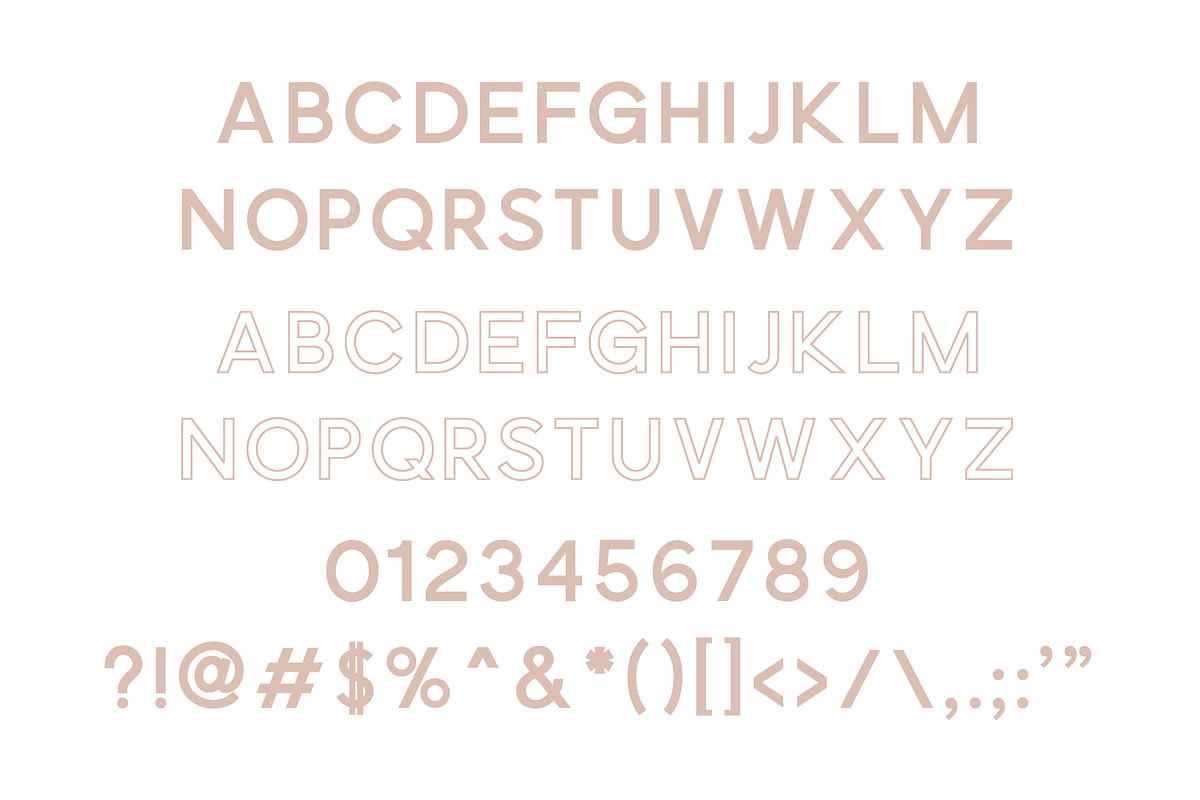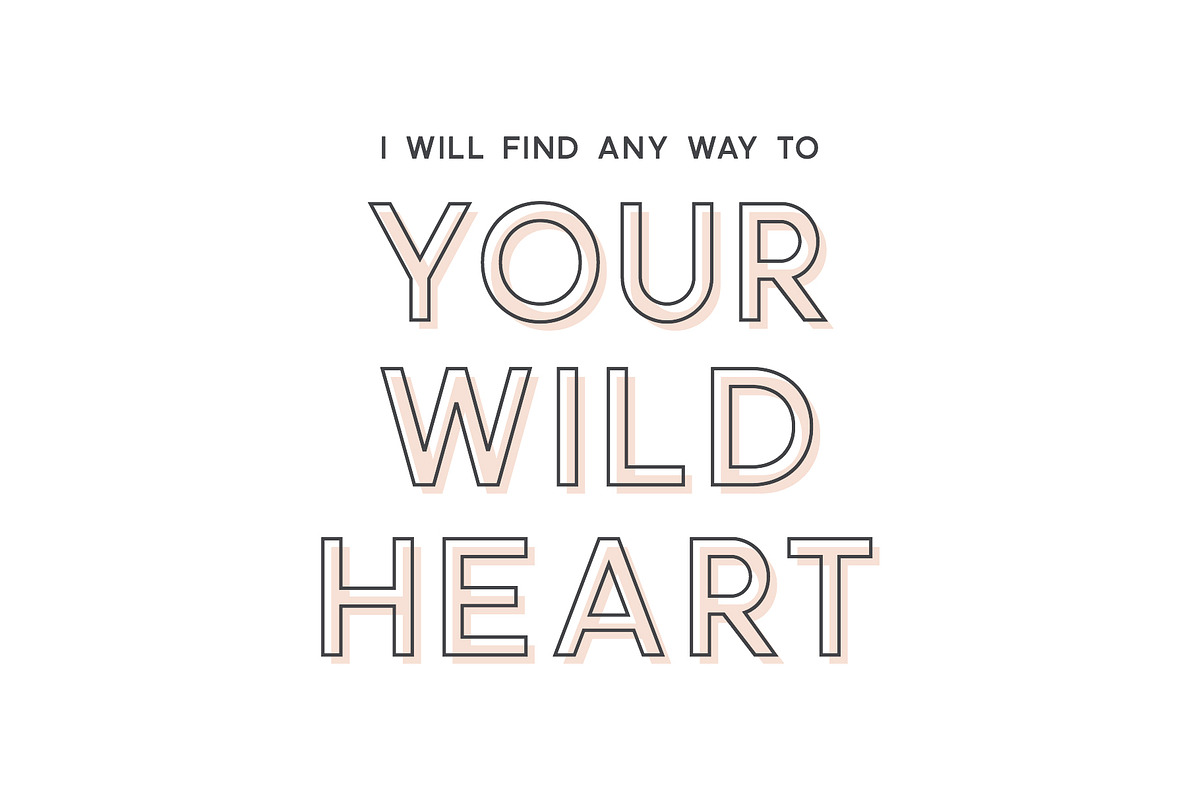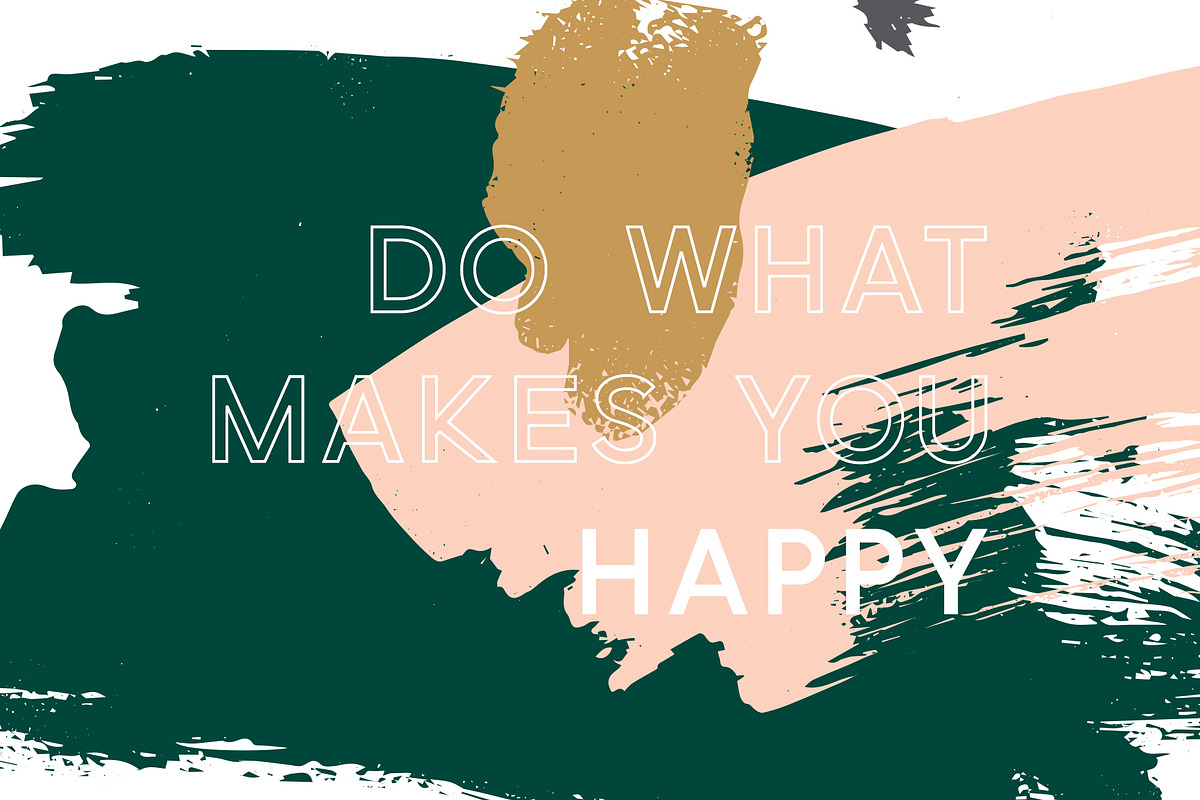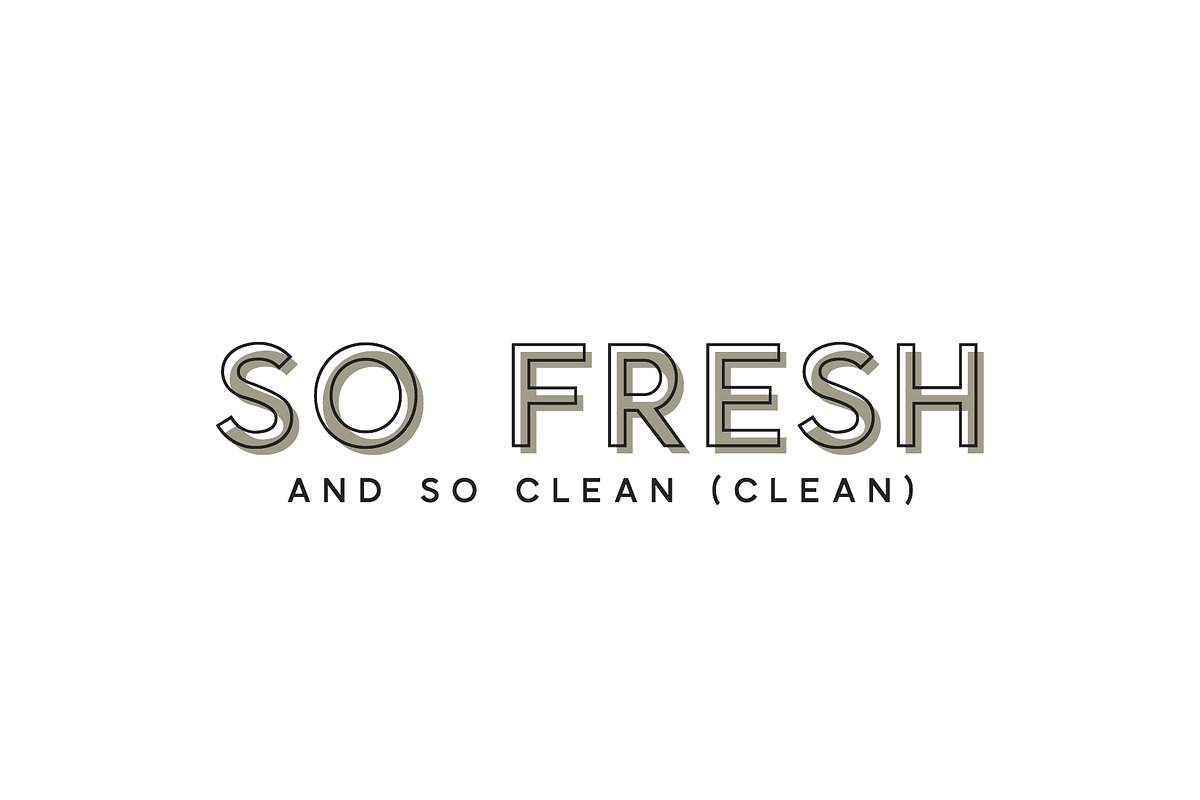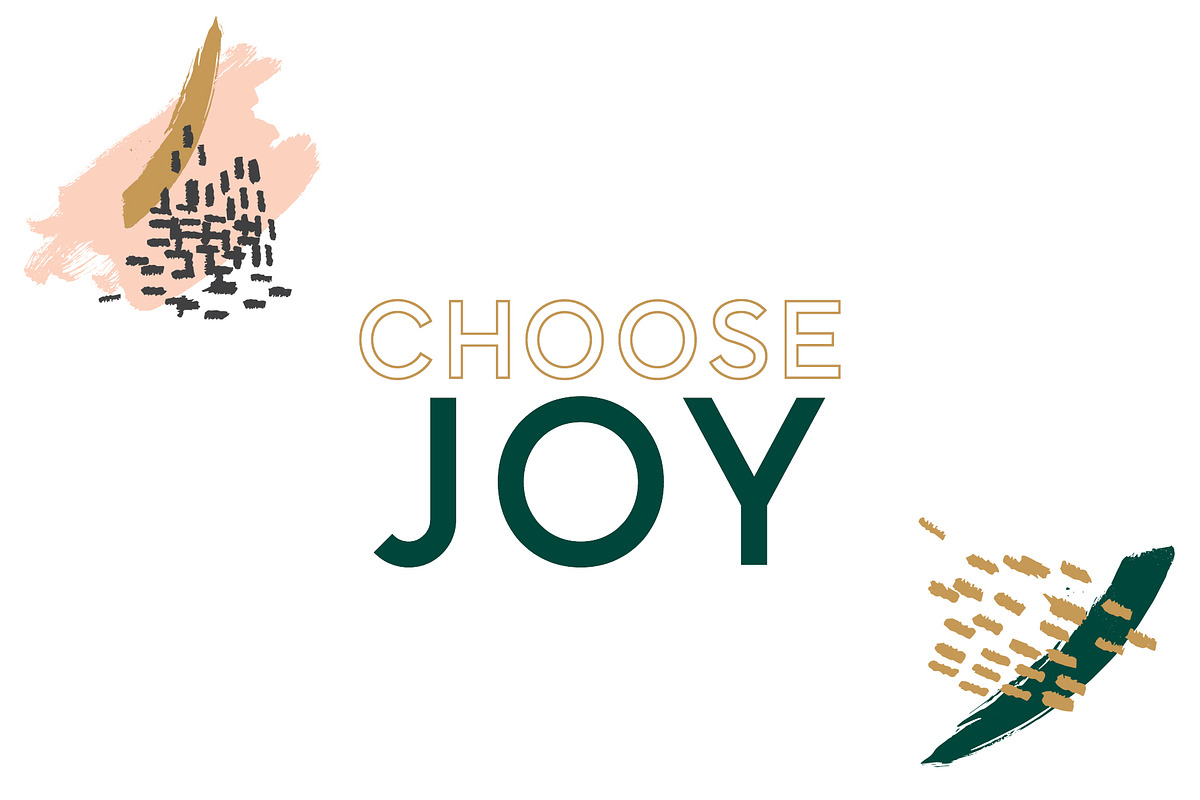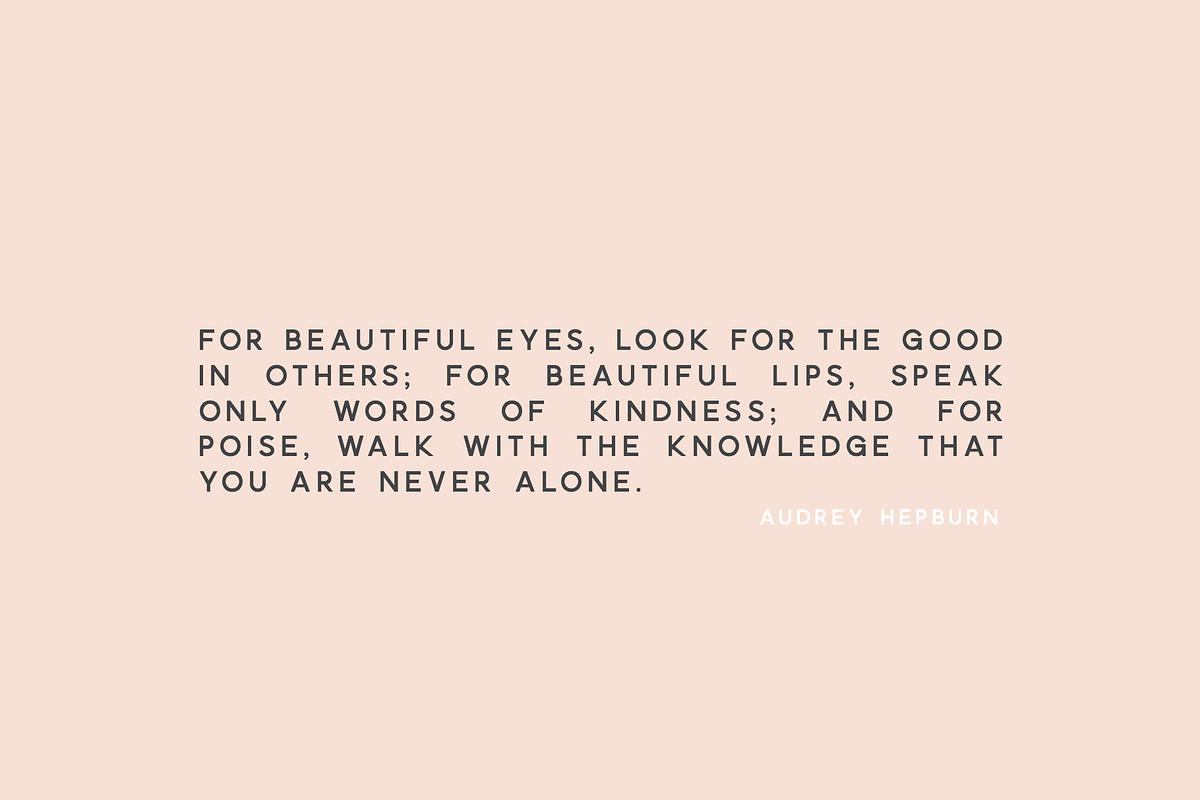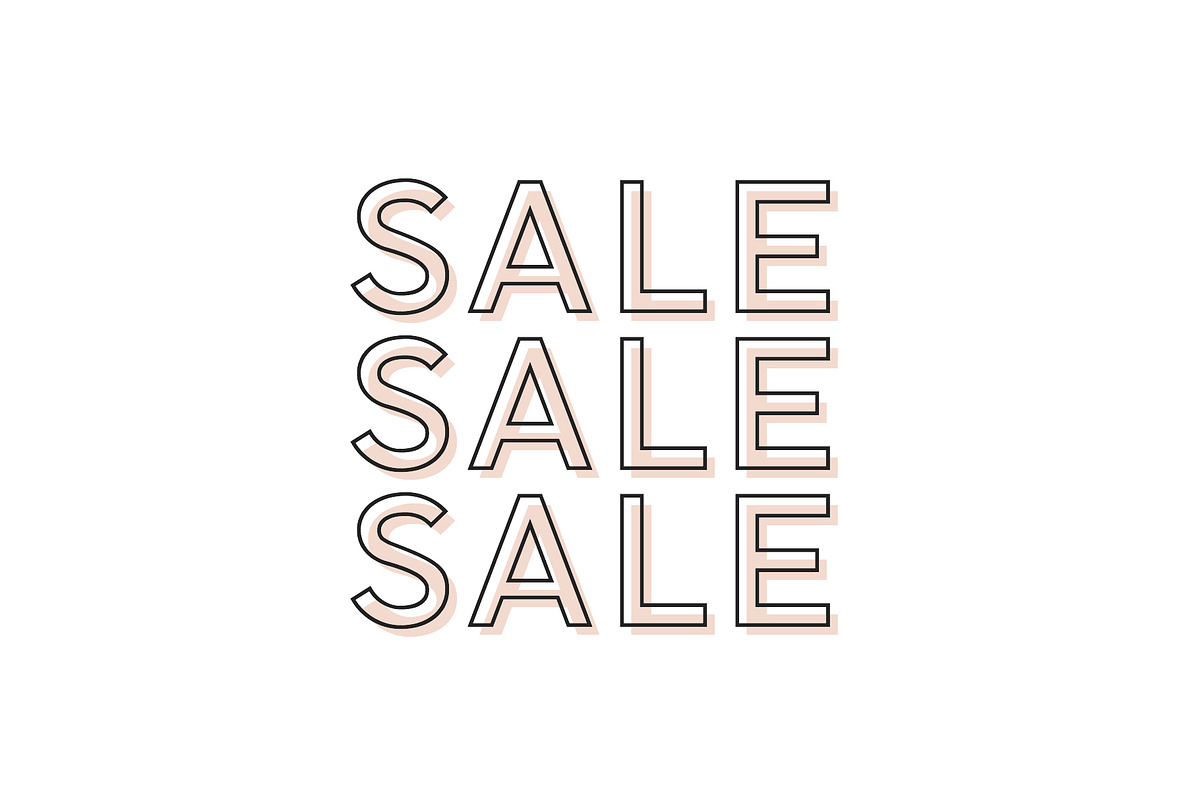
Osaka | Designer Font Duo
Say hello to Osaka – a fresh new take on the best-selling Tokyo font! Based on the sleek and clean lines of the Phoenix typeface, Osaka is perfect for bold headlines, clean logos, and even beautiful quotes!
The outline font automatically offsets, making it really simple to layer these fonts together perfectly. Simply duplicate your "Regular" layer and switch the setting to "Outline", and the type will automatically offset up and to the left for you!